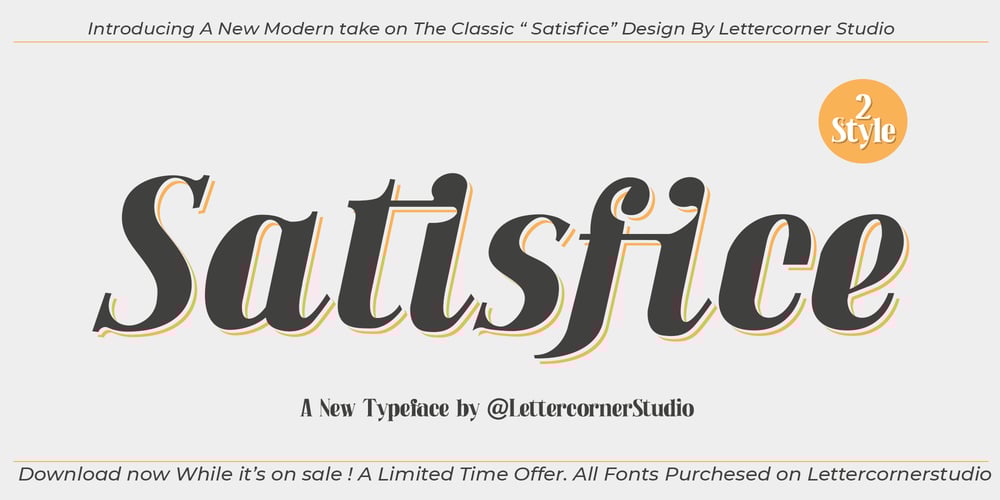
Satisfice Font Family was designed by Muhammad Afif Ersya and published by Mevstory Studio. Satisfice contains 2 styles and family package options. Satisfice is alteration of satisfy, influenced by Latin satisfacere. The formal use dates from the 1950s and I hope that with this font you as a user of this font can feel satisfied using this font. Satisfice is a modern serif typeface. Clean, delicate, classic and has a characteristic. Please let me know if you have any questions.Lettercorner Studio